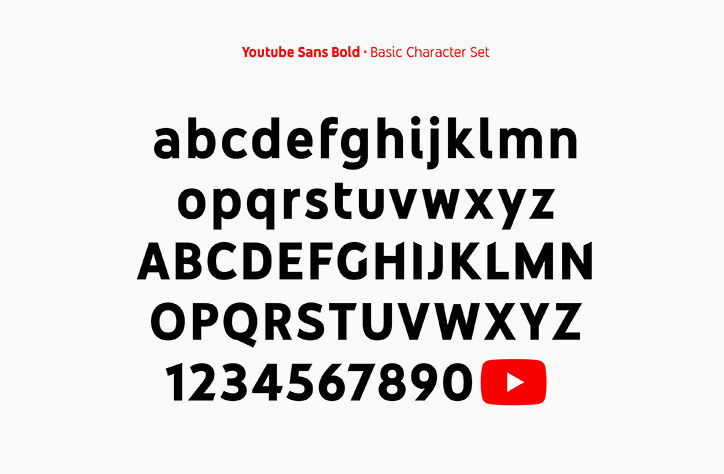
The Death of Helvetica and the Rise of the Bespoke Font
Why some big brands are ditching typefaces like Helvetica in favor of creating their own bespoke font.
Death of Helvetica and rise of the bespoke font
Look familiar?
This is a font called Helvetica Neue. You’ve probably seen it before. Because, well, it’s everywhere.
No, seriously. Everywhere.
A few years ago a New York graphic designer tried to live for a day without seeing the font, and struggled to find clothes, transport, and even food that didn’t feature the typeface.
Popular with Madison Avenue in the 1960s, the font began popping up on products, signage, and more due to its neutrality, and readability. But in just the last few years, a not insignificant number of brands that used the font previously have switched typefaces.
What’s interesting is that you may not have noticed.
In 2011, Google switched to using an original font called Roboto.
In 2013, Apple switched to its own original font, San Francisco.
And, in 2016, CNN started using a new font CNN Sans.
What do these new fonts have in common? Well, to the lazy eye, they all look pretty similar to Helvetica.
In the last couple of years more brands have followed suit. Creating bespoke fonts built exclusively for them, including Coke, IBM, Netflix, and Airbnb.
But why?
What’s wrong with simple old Helvetica?
The story of Helvetica
According to Font Bureau, the story of Helvetica begins in 1956 at the Haas type foundry in Switzerland.
Haas was finding the sales of their sans serif, or grotesk typefaces were dwindling as the design world transitioned to the emerging international style.
Looking at its predecessors in the Haas type foundry lineup, you can see the resemblance to the font we use today.
Work on Helvetica began around 1956, comparing the most distinctive features of these old fellow grotesks: consistently horizontal stroke terminals, large x-height, and extremely tight spacing.
After debuting at “Graphic 57”, a trade show, Neue Haas Grotesk was an immediate success, soon adopted by many graphic designers. It became a hallmark of contemporary Swiss graphic design.
In 1959, seeing the opportunity for international expansion, Haas foundry made a deal with D. Stempel AG in Germany to manufacture the font for the Linotype machine, reaching an even larger customer base.
The name Neue Haas Grotesk was soon changed to something more reflective of both its geographic origins, and something a little easier to remember: “Helvetica”, a spin on the word “Helvetia” which is Latin for Switzerland.
As its popularity increased to unparalleled levels, Haas felt the demand to supply more weights, and alterations to the font. To do so quickly they hastily tweaked and renamed some older fonts in their library to build out the Helvetica family, and meet demand, which led to inconsistencies.
When Helvetica finally transitioned to digital, a lot of those inconsistencies came with it.
For instance, the Macintosh version of Helvetica Oblique still features a digitally slanted version of the font.
In 1982, Linotype set out to clean up this hodgepodge of fonts with a new family called Helvetica Neue.
Then in 2004 work began to digitize and “restore” this family, completed in 2010. Christian Schwartz who led the restoration carefully redrew the typeface to match its original forms drawn by Miedinger.
It provided all the weights from black to ultra thin.
And it’s this font much of the world uses some version of today.
But, over the last few years, we’ve started seeing less of it.
Bespoke Fonts
01. Roboto
google logo made with roboto
roboto fonts in different sizes and thickness
2011 saw the launch of Roboto, a neo-grotesque sans serif font described as “modern, yet approachable”, and, “emotional” by Google, the company that commissioned it.
It rolled out with that year’s update to Android.
Roboto lowercase and uppercase alphabets
Then, in 2014, paired with the launch of Google’s design language, Material Design, it updated the font to be more friendly, and perform well in a large range of contexts.
It uncurled the rounded leg of its uppercase ‘R’, and rounded the dots on its lowercase ‘i’ and ‘j’, along with its periods (.), and other symbols.
Now, it appears across most of Google’s products.
They’ve made it free to download making it easy for companies like Envato to use.
02. San Francisco
Apple logo in white against a black background
To go with its release of the Apple Watch, Apple developed a new font built for small screens called San Francisco.
San Fransisco by Apple
difference between san fransisco normal fonts and san fransisco compact fonts in lowercase
After using Helvetica Neue as the system font for the iPhone, iPad and Mac operating systems, they begun finding the font hard to read on small devices. Letters were blending together, the spacing was too close, and the font size and resolution was too low.
We’ll be watching to see if this trend continues as the year unfolds.